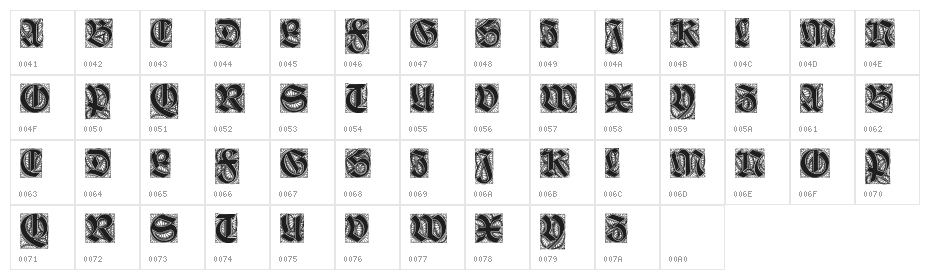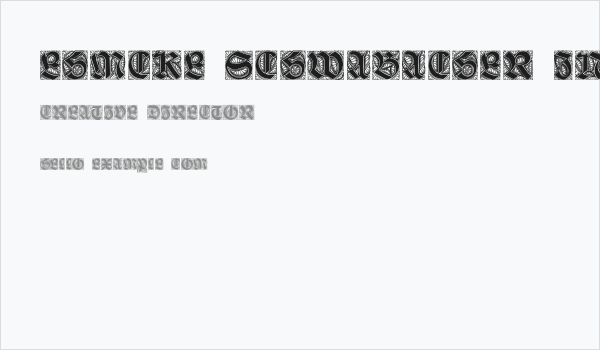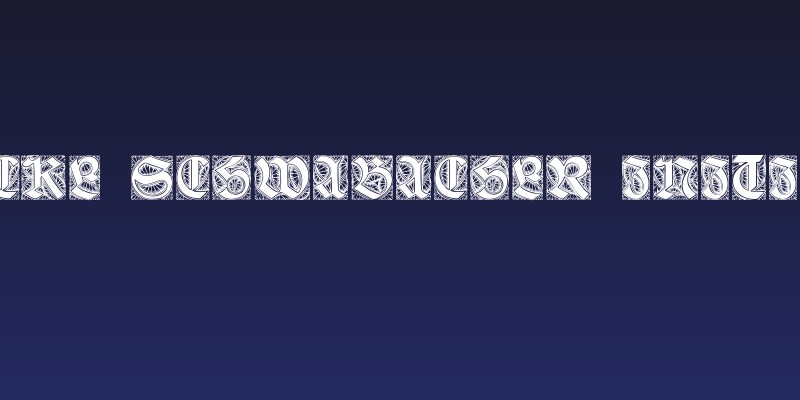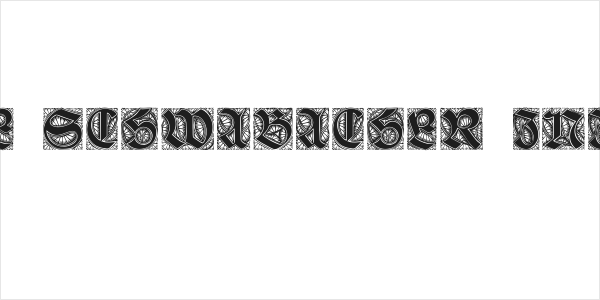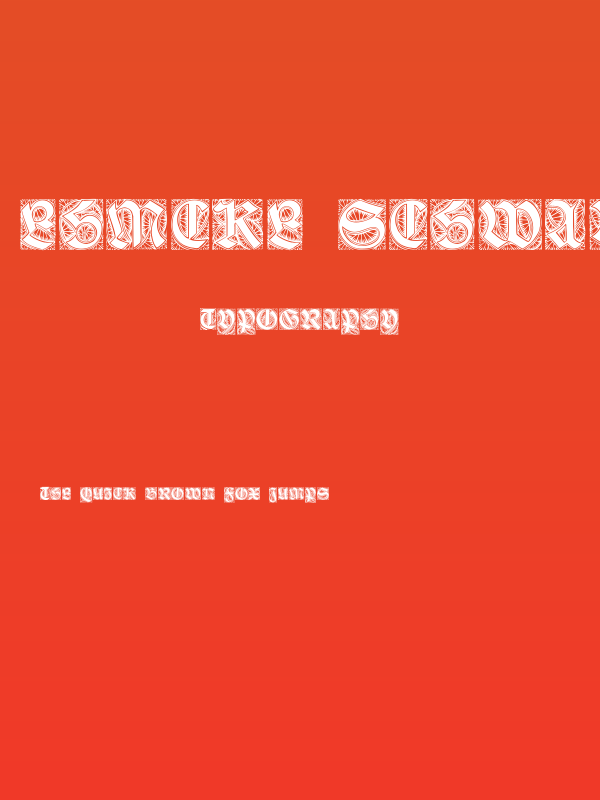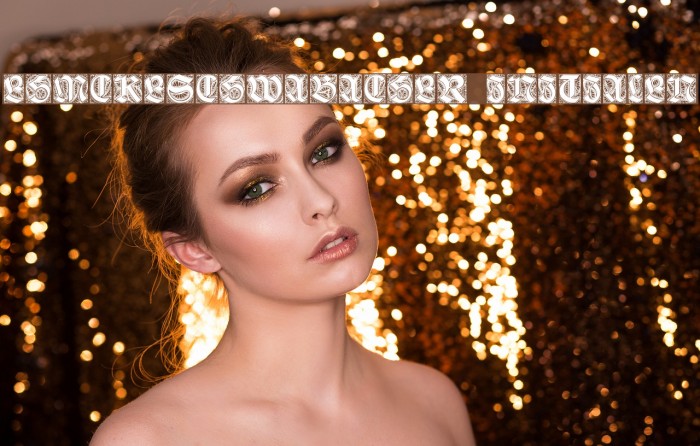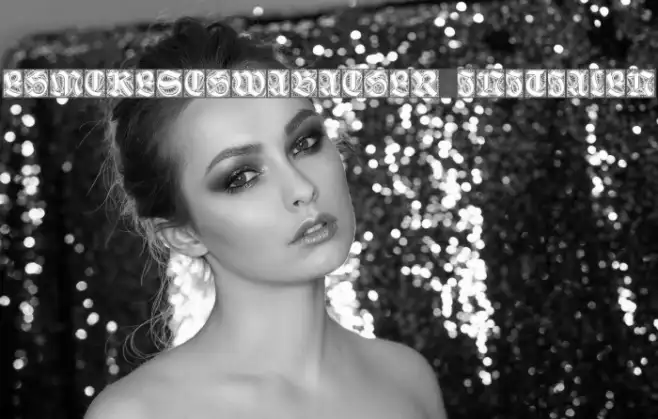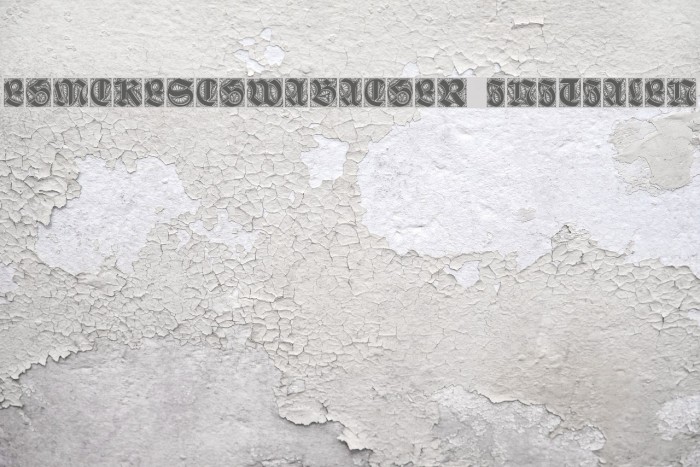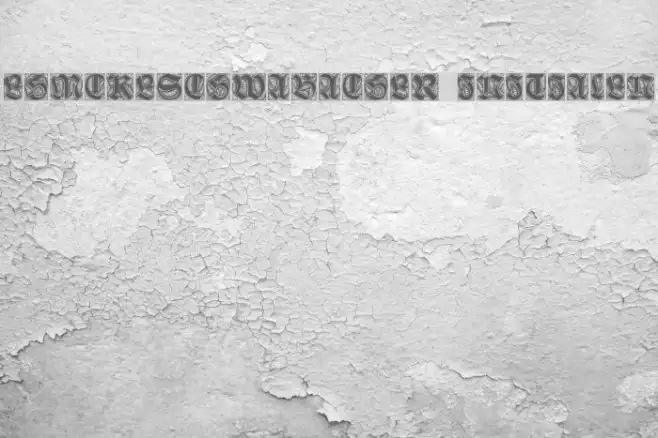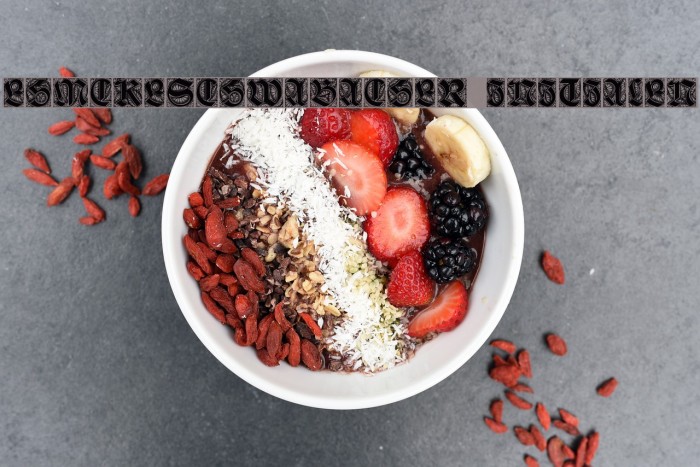
Ehmcke-Schwabacher Initialen Font
Ehmcke-Schwabacher Initialen Description
This font is a highly decorative and intricate typeface that features elaborate, swirling patterns within each character. The letters are enclosed in square borders, giving them a distinct, framed appearance. The design is reminiscent of medieval or Gothic styles, with a strong emphasis on ornamental details. Each character is uniquely crafted with a combination of bold strokes and delicate lines, creating a striking visual contrast. The overall aesthetic is both historical and artistic, making it suitable for projects that require a touch of elegance and sophistication.
| Proposed Projects | Ideal for use in historical or fantasy-themed designs, book covers, invitations, and decorative headings. |